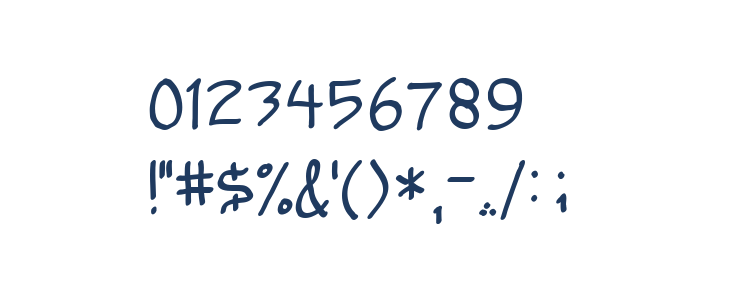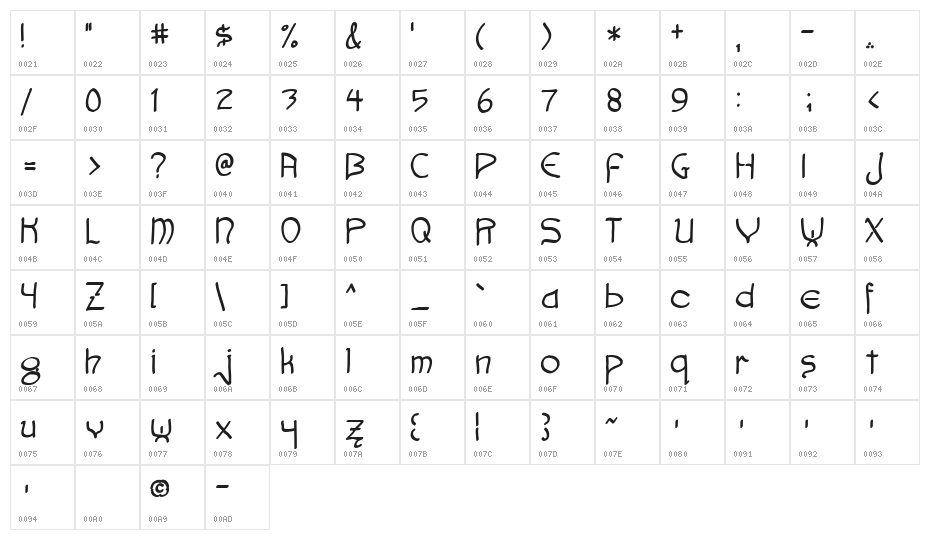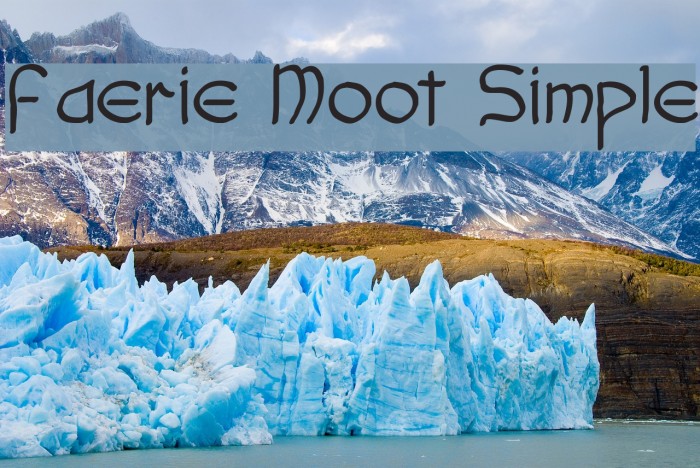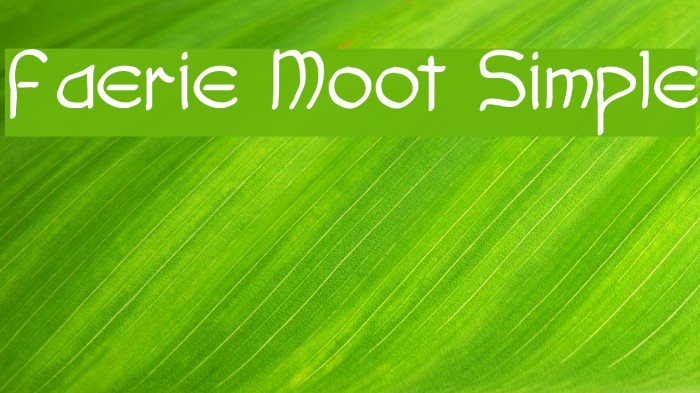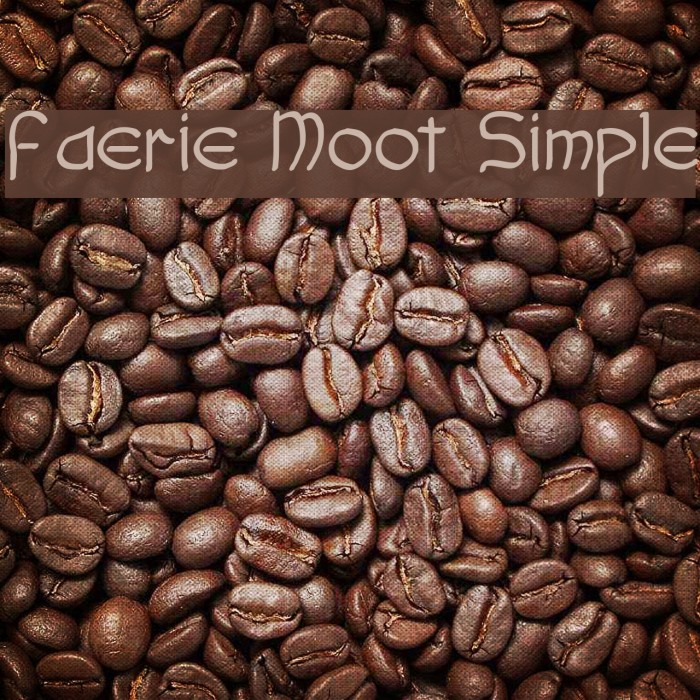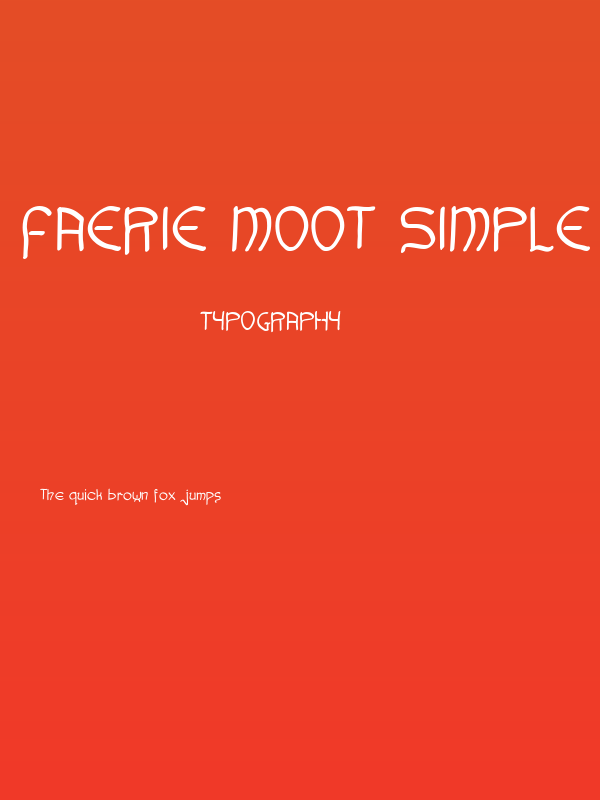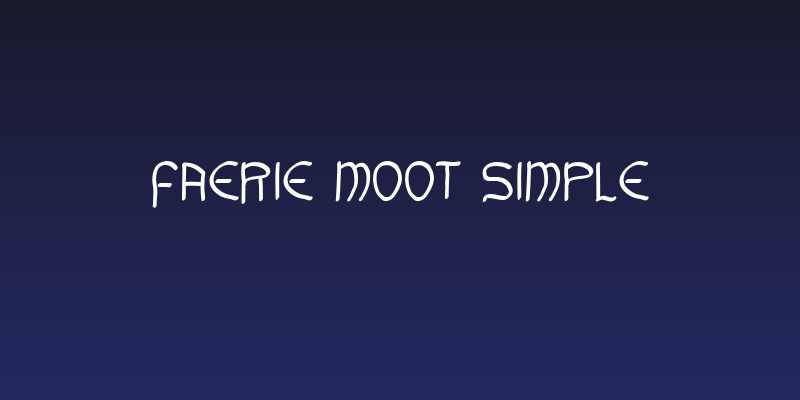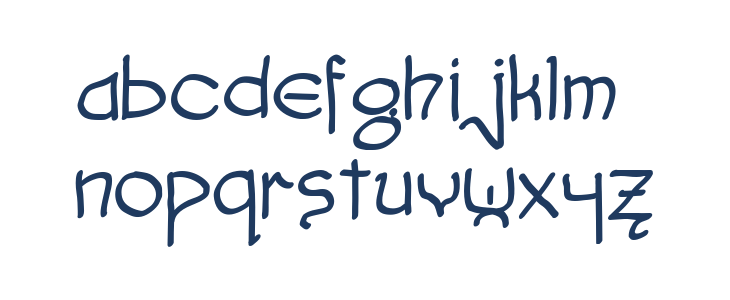
Faerie Moot Simple Font
Faerie Moot Simple Description
This font features a whimsical and playful design, characterized by its unique, hand-drawn appearance. The letters have a slightly uneven and organic feel, with curves and strokes that give it a lively and dynamic character. The uppercase and lowercase letters maintain a consistent style, with some letters exhibiting distinctive flourishes, such as the tails on the 'g' and 'y'. Numbers and special characters are crafted to match the overall aesthetic, ensuring a cohesive look across all text. The font's style is reminiscent of fairy tales or fantasy themes, making it ideal for projects that require a touch of magic or creativity.
| Overall Style | Whimsical, Playful |
| Proposed Projects | Ideal for children's books, fantasy-themed projects, greeting cards, and creative branding. |